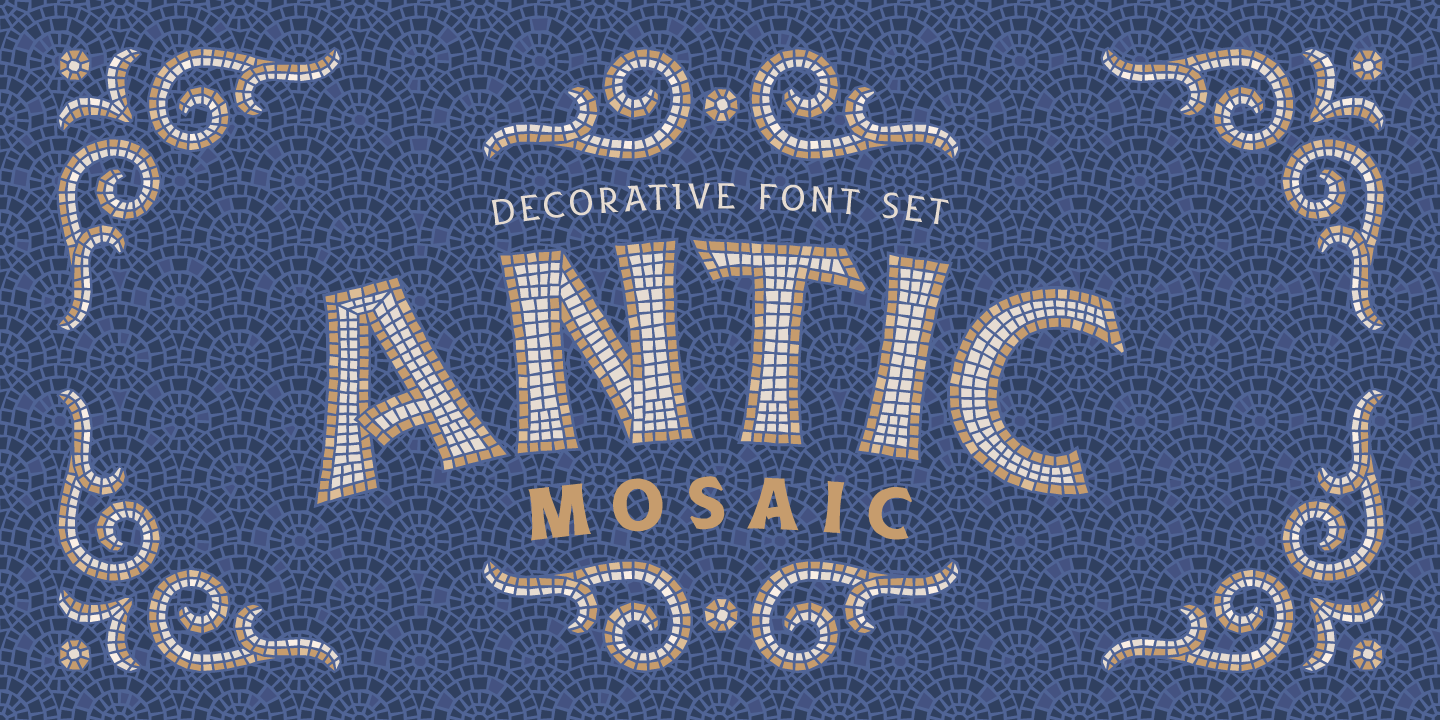
Antic Mosaic Font is ideal for museum exhibition graphics, archaeological publication layouts, historical documentary titles, classical art presentations, ancient civilization themes, heritage tourism materials, vintage tile design projects, Mediterranean restaurant branding, cultural heritage signage, and artistic mosaic-inspired decorations. This distinctive typeface excels in applications where ancient craftsmanship and timeless artistic traditions need to be communicated with authentic historical character and sophisticated cultural reverence.
What makes Antic Mosaic Font exciting is its extraordinary ability to capture the essence of ancient Roman and Byzantine mosaic artistry through its fragmented letterforms that appear to be constructed from individual tessellated pieces. The font embodies the spirit of classical civilization and artistic mastery with its carefully broken character edges and tile-like construction that reflects centuries of artistic tradition and skilled craftsmanship. Its authentically weathered appearance and historical personality create an atmosphere of archaeological discovery that resonates with history enthusiasts and cultural preservation advocates.
The Antic Mosaic Font family typically includes Regular and Bold weights, each maintaining the signature fragmented mosaic characteristics that define ancient tile work. Some versions offer additional distressed variants with enhanced weathering effects and alternative character sets that provide realistic historical variations. The family may also include decorative borders, ornamental elements, and special symbols inspired by classical mosaic patterns and ancient artistic motifs.
Whether you're creating historical exhibitions, cultural heritage materials, or ancient-inspired design projects, Antic Mosaic Font Free Download delivers the perfect archaeological authenticity your historically-conscious projects deserve. Its mosaic character and classical styling make it an invaluable choice for museums, historians, and designers seeking to establish genuine connections with ancient civilizations while honoring the artistic legacy and cultural significance of traditional mosaic craftsmanship.